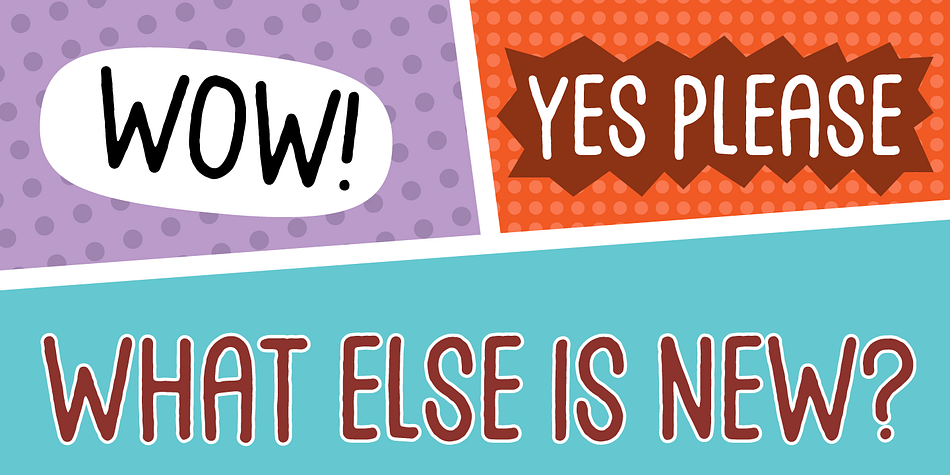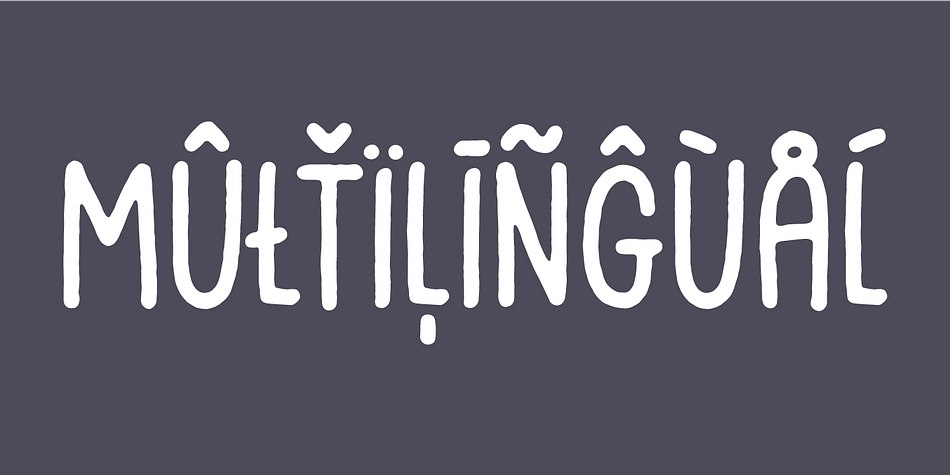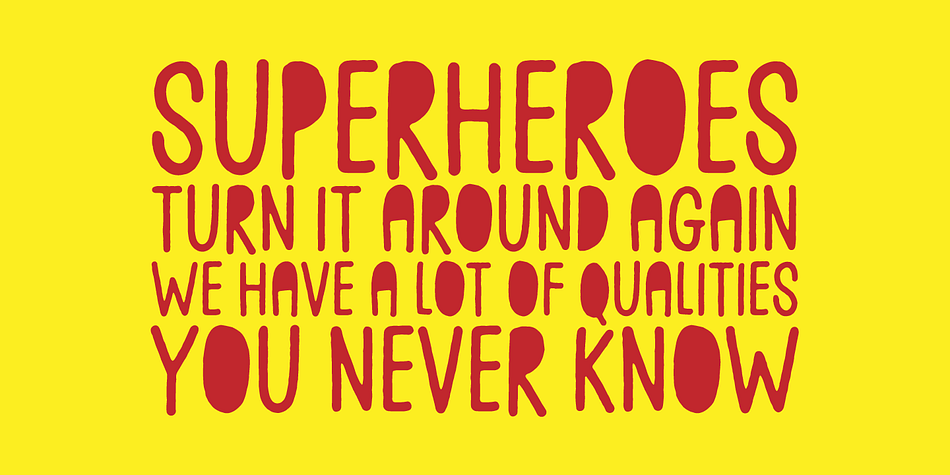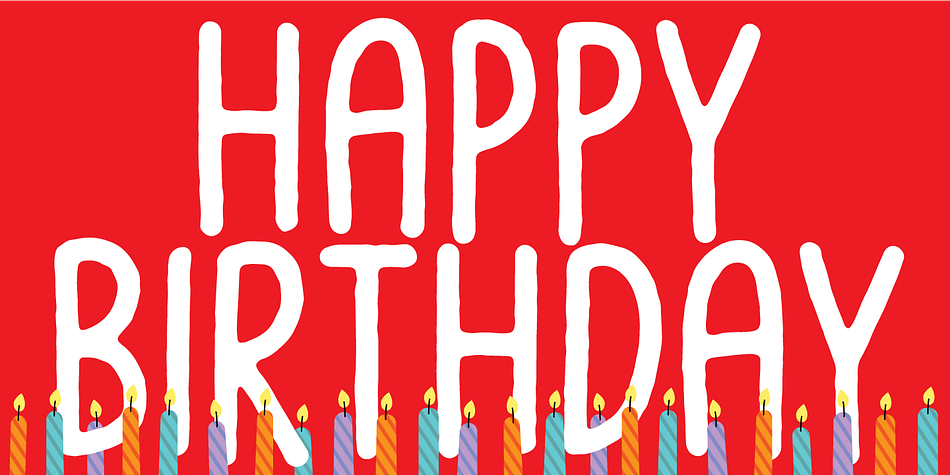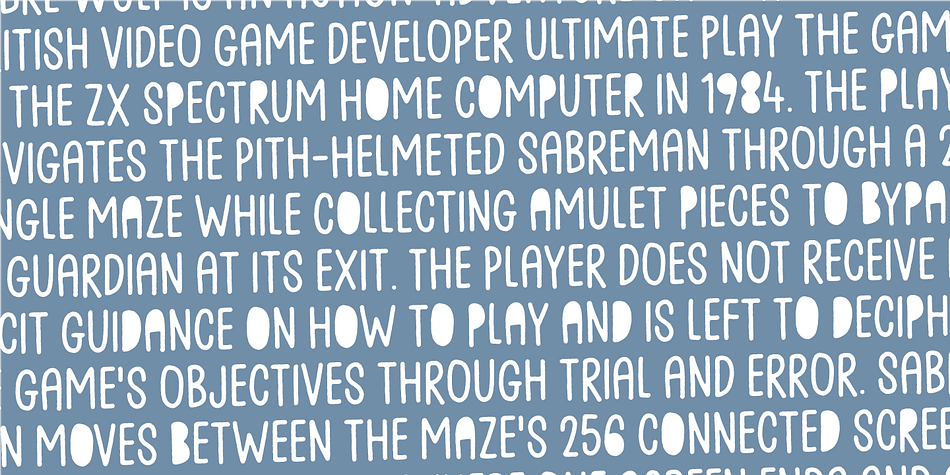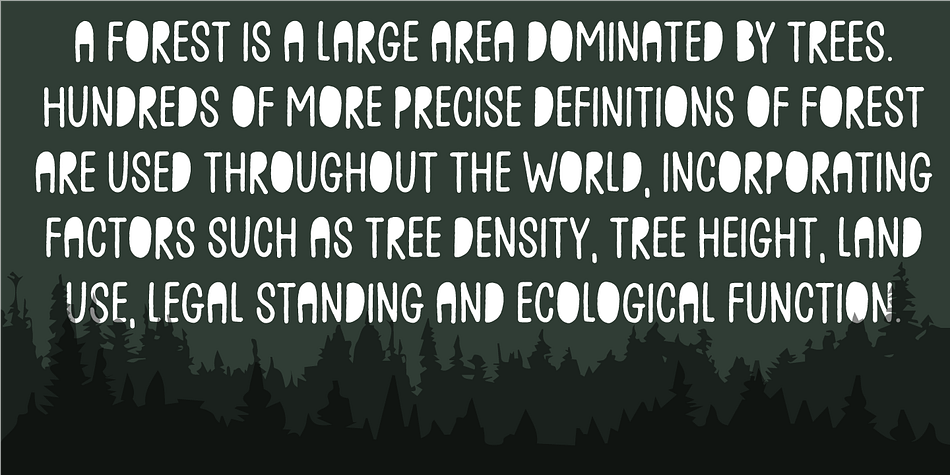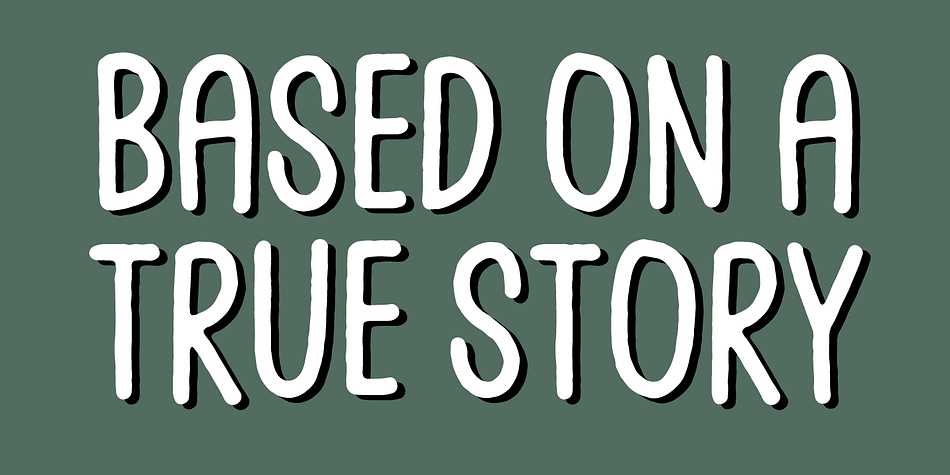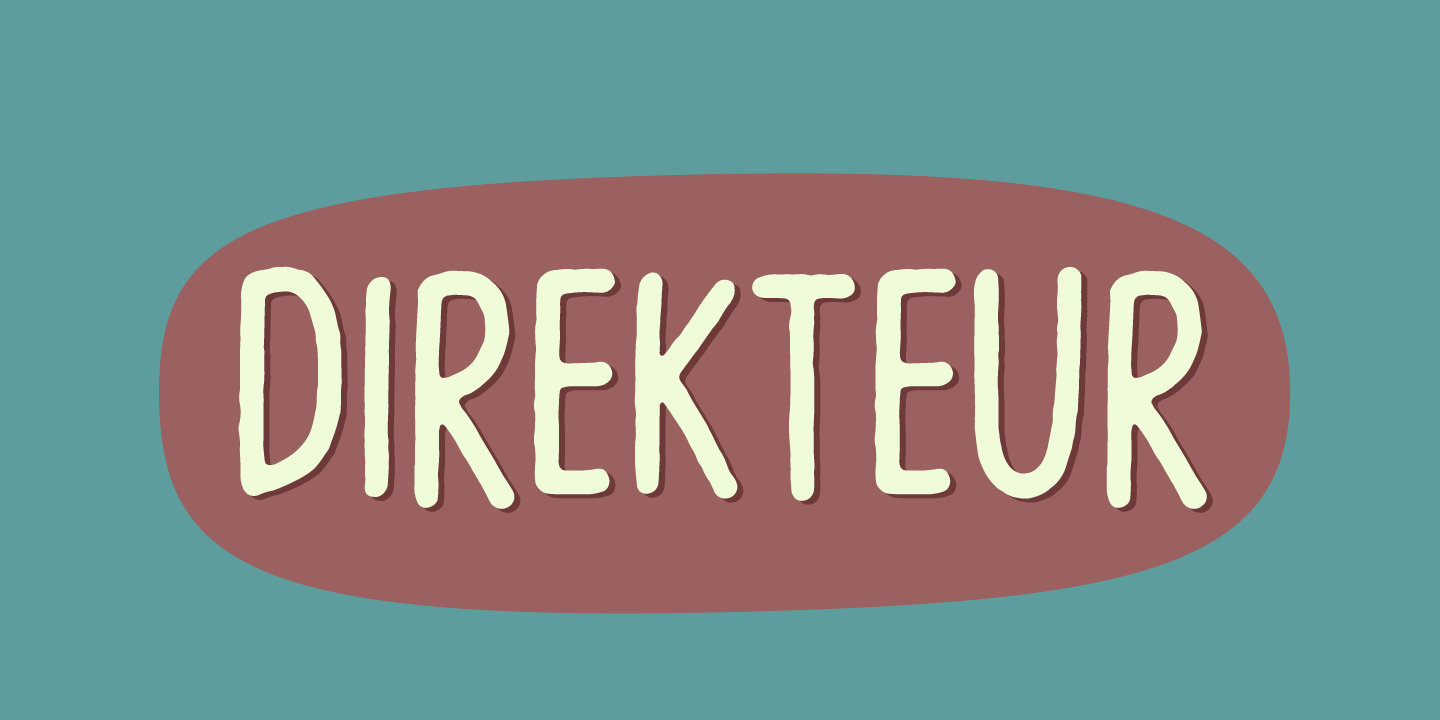
Designed by Jakob Fischer, Direkteur is a comic and hand display font family. This typeface has two styles and was published by Bogstav.
A legible and very functional comic book font!